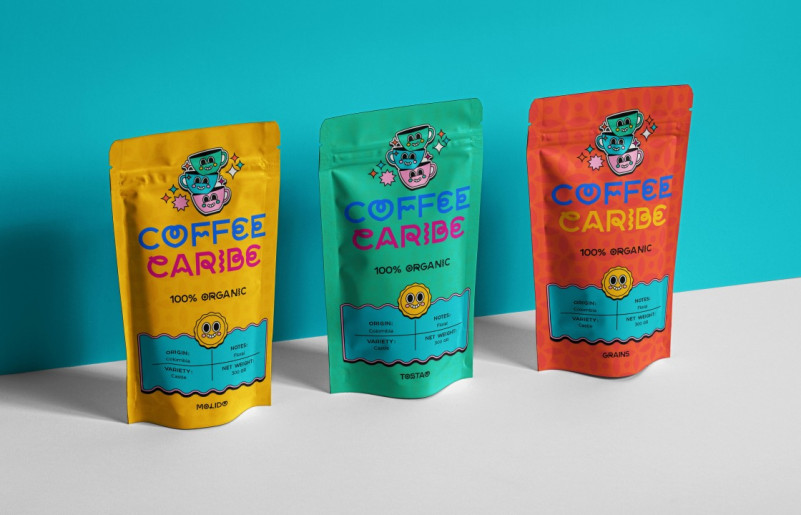
Zilap Cool Font
Zilap Cool Font is a fun and unique font, which is composed of a varied design of shapes between letters that do not follow a pattern and this same feature is what makes it very peculiar and different. Perfect for colorful, contemporary, daring brands with a lot of personality.
Designed and Illustrated by Zilap Estudio
Welded and assembled by LJ Design Studio